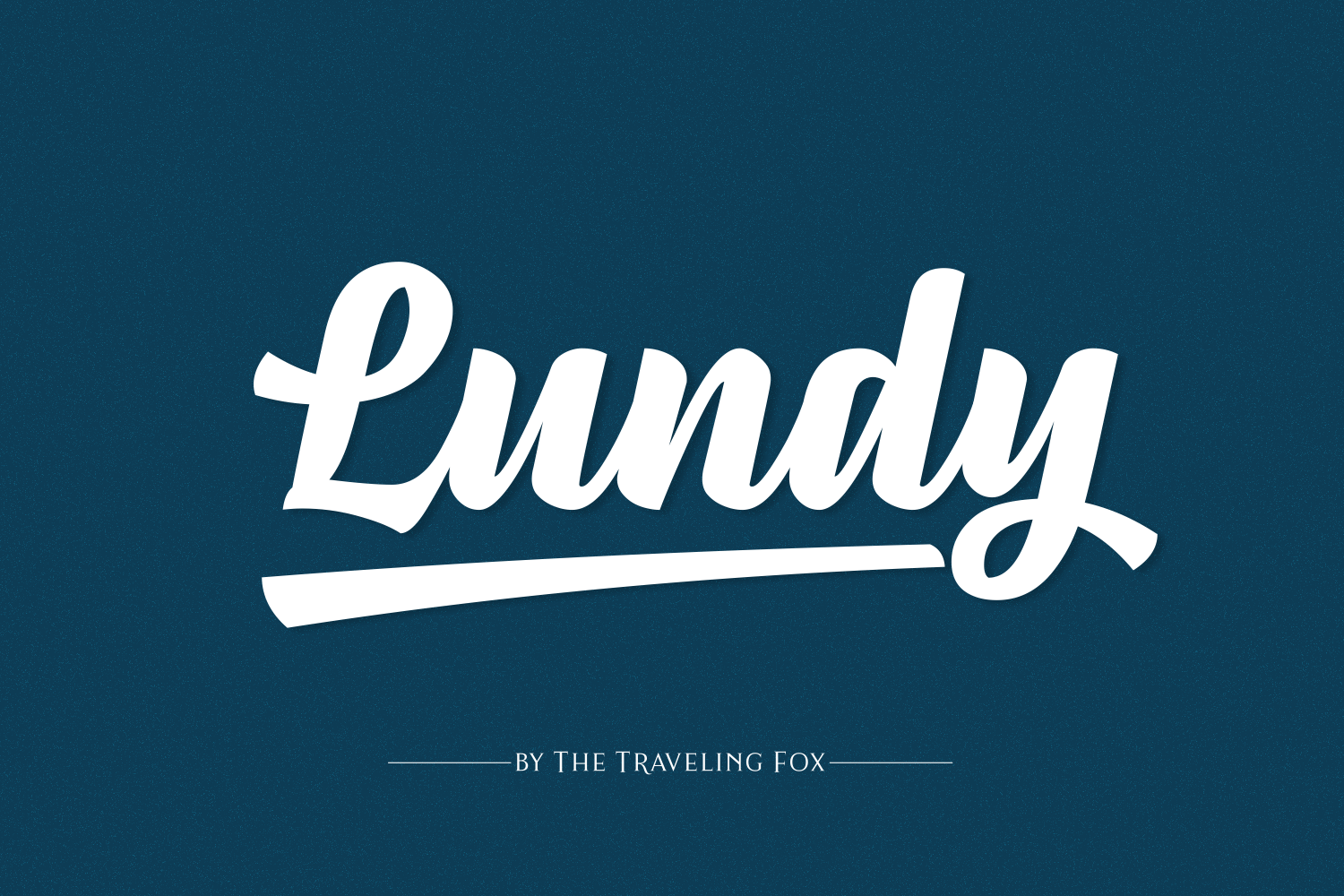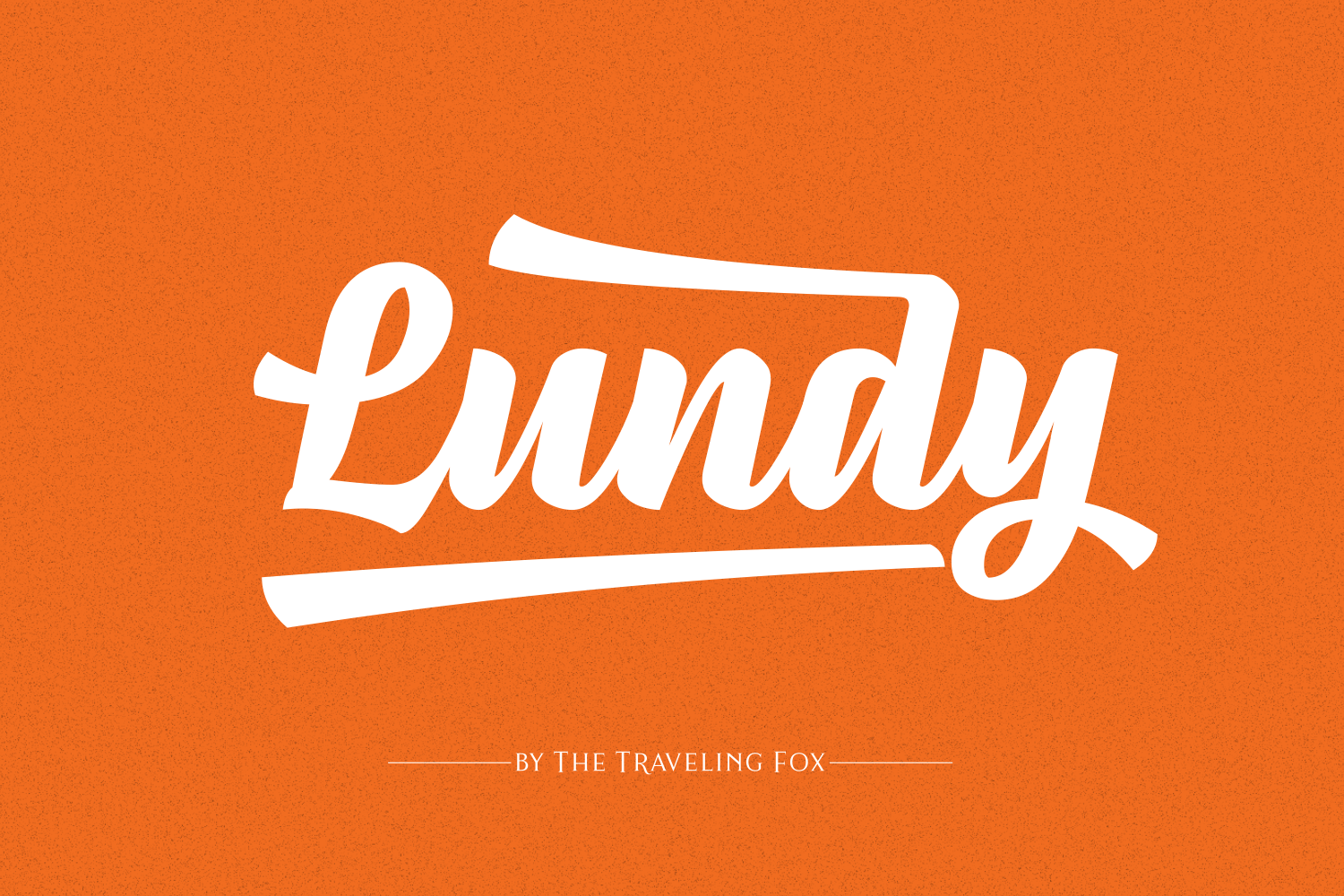
About Lundy Font
Lundy is bold, versatile font. It’s expressive and great for branding, crafting and much more. It is easy to read and works well for digital designs, print & cut.
To add the decorative line underneath, simply add an underscore, asterisks and the number of the swash (for example:Â T_*1raveling) or grab it from the PUA encoded section of the font.